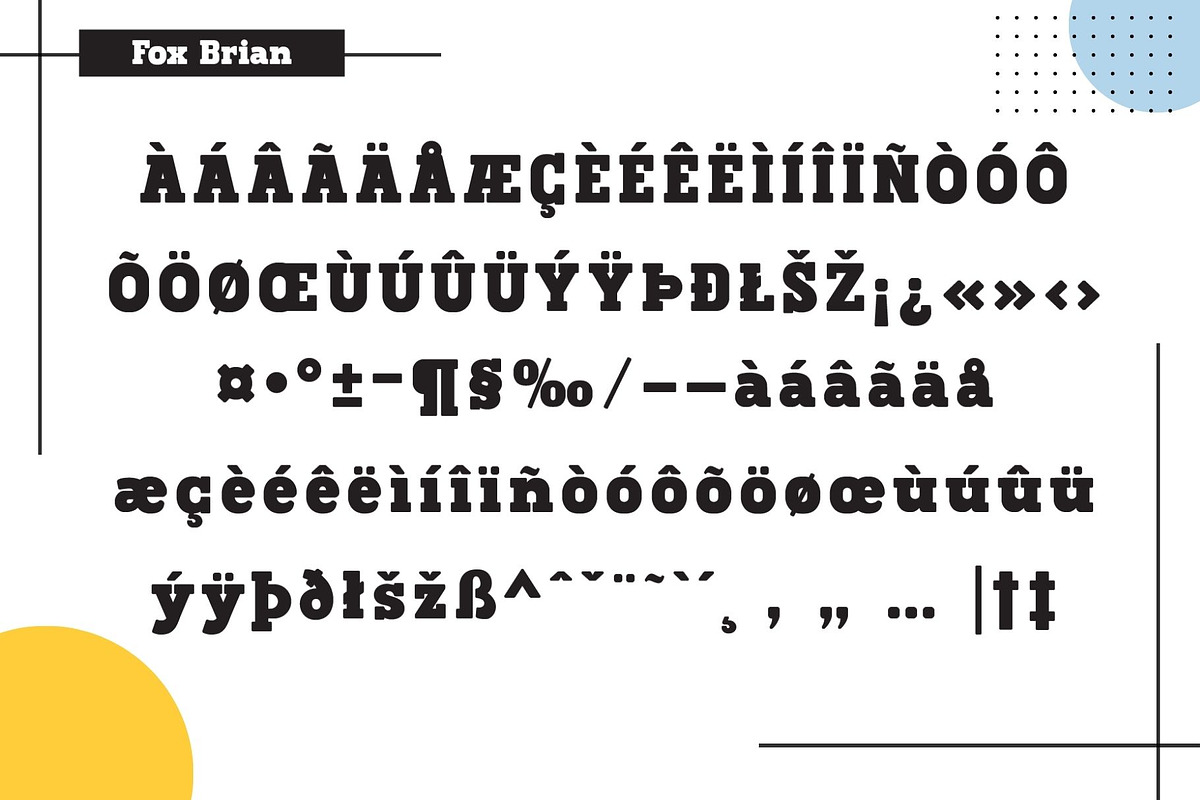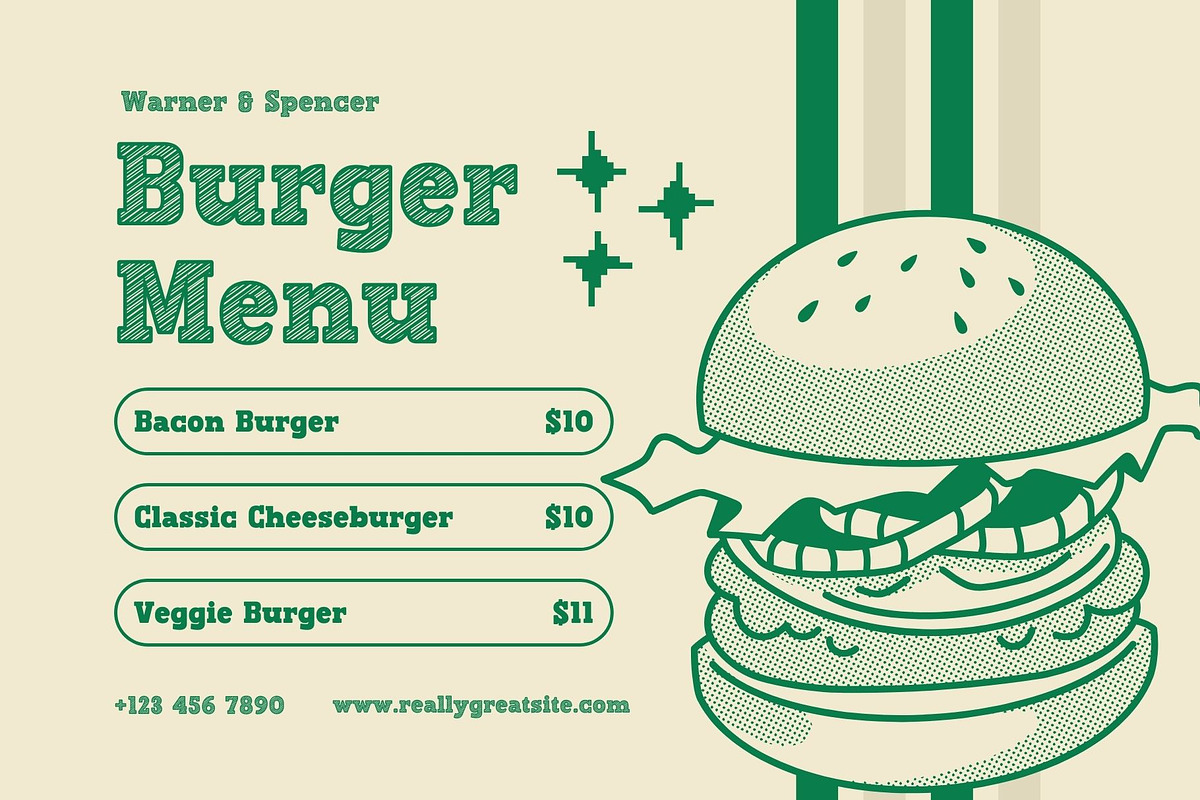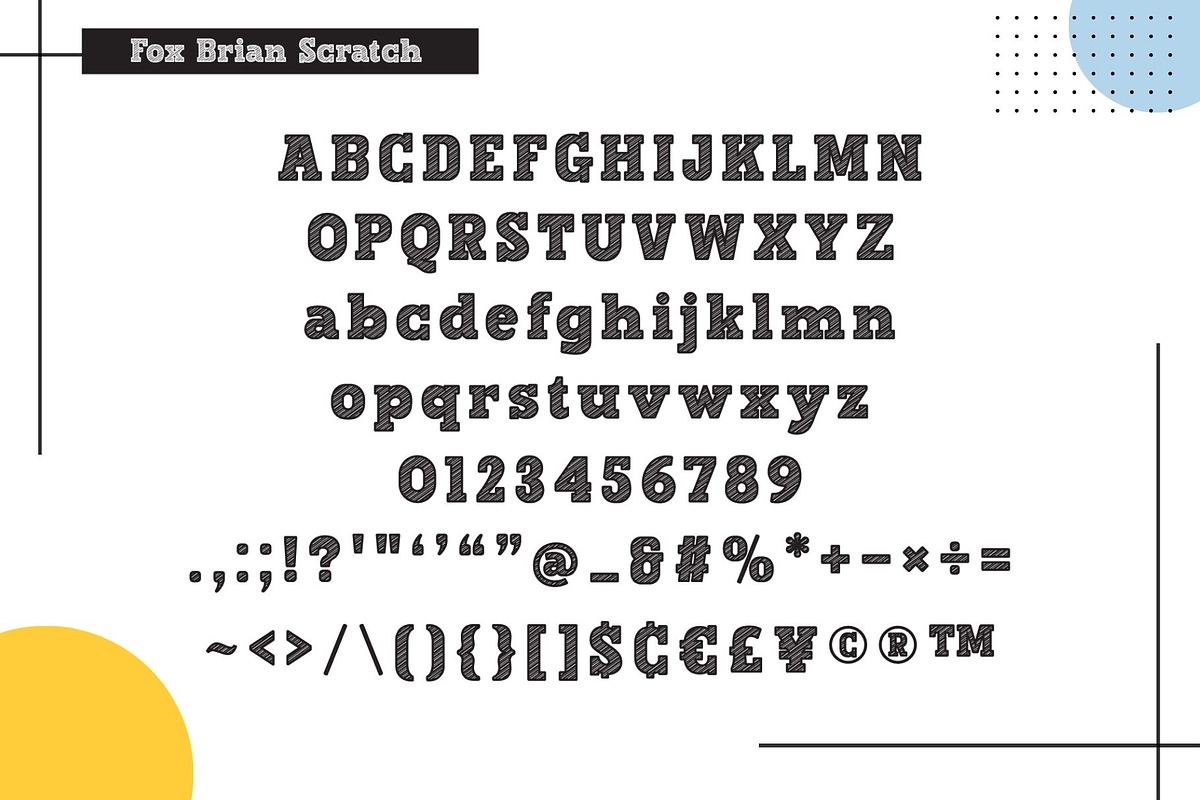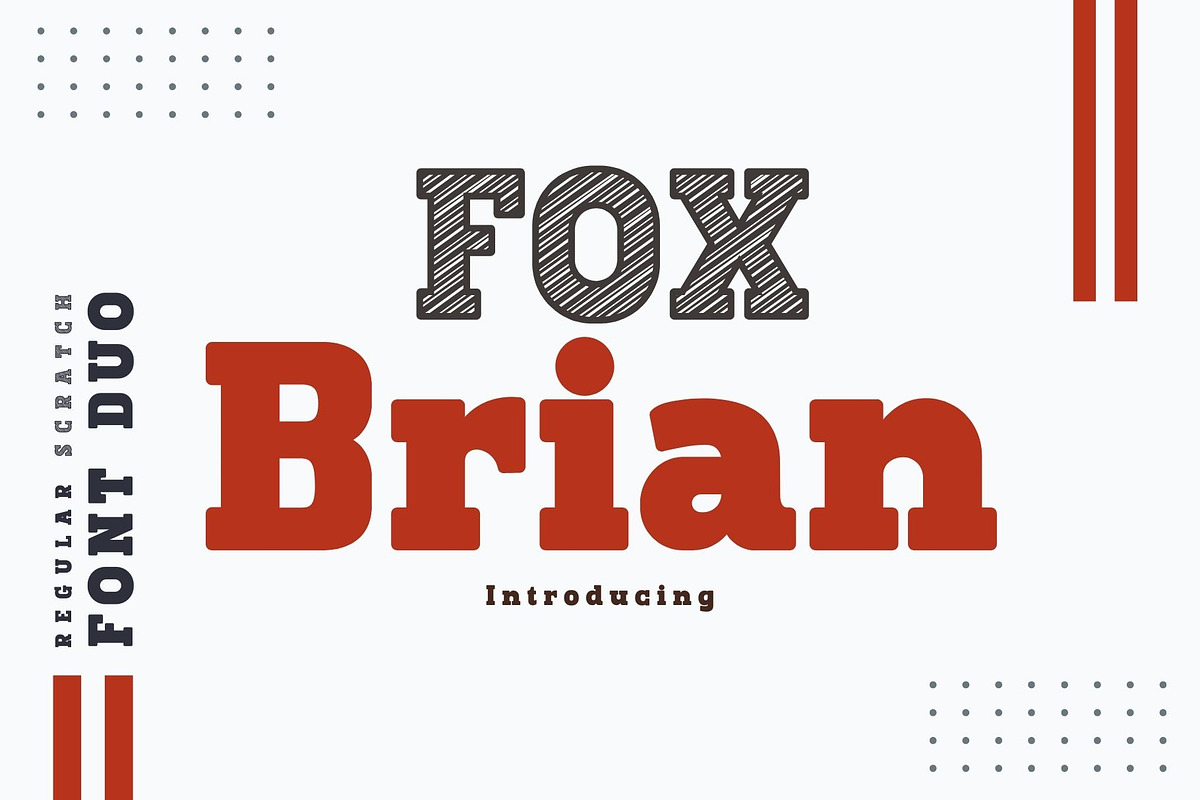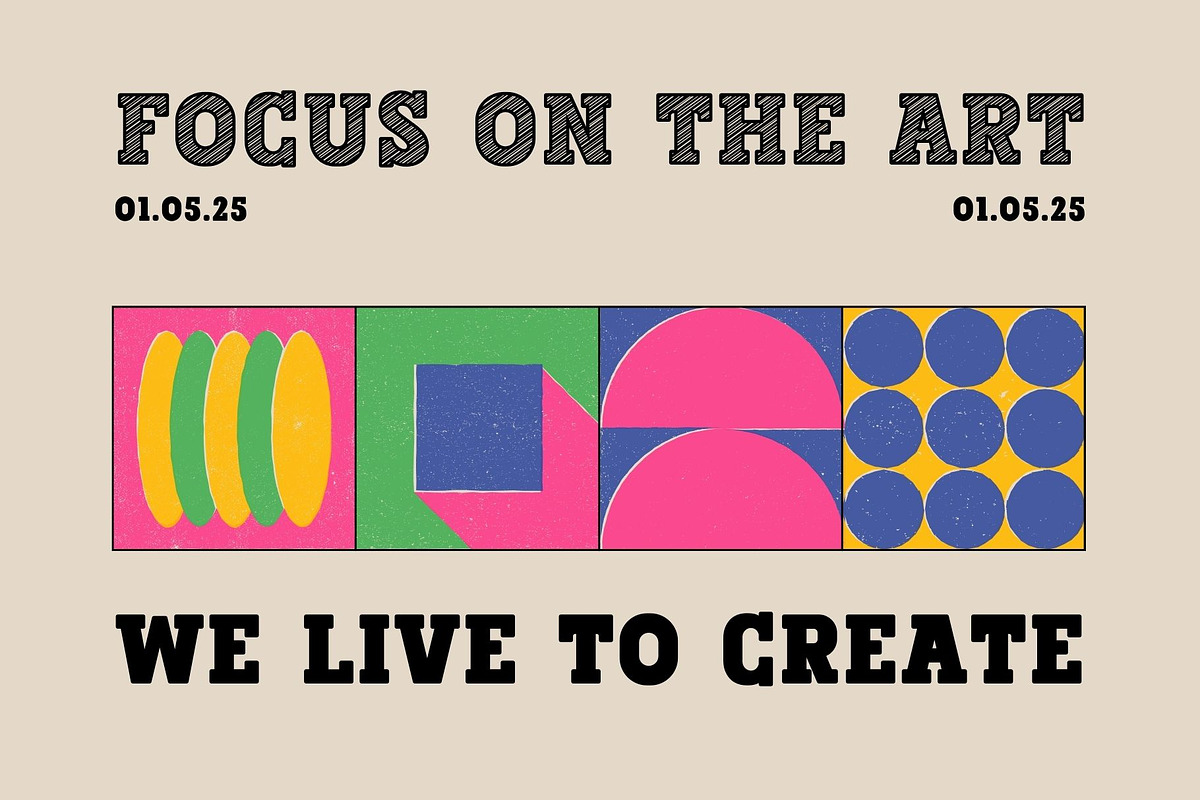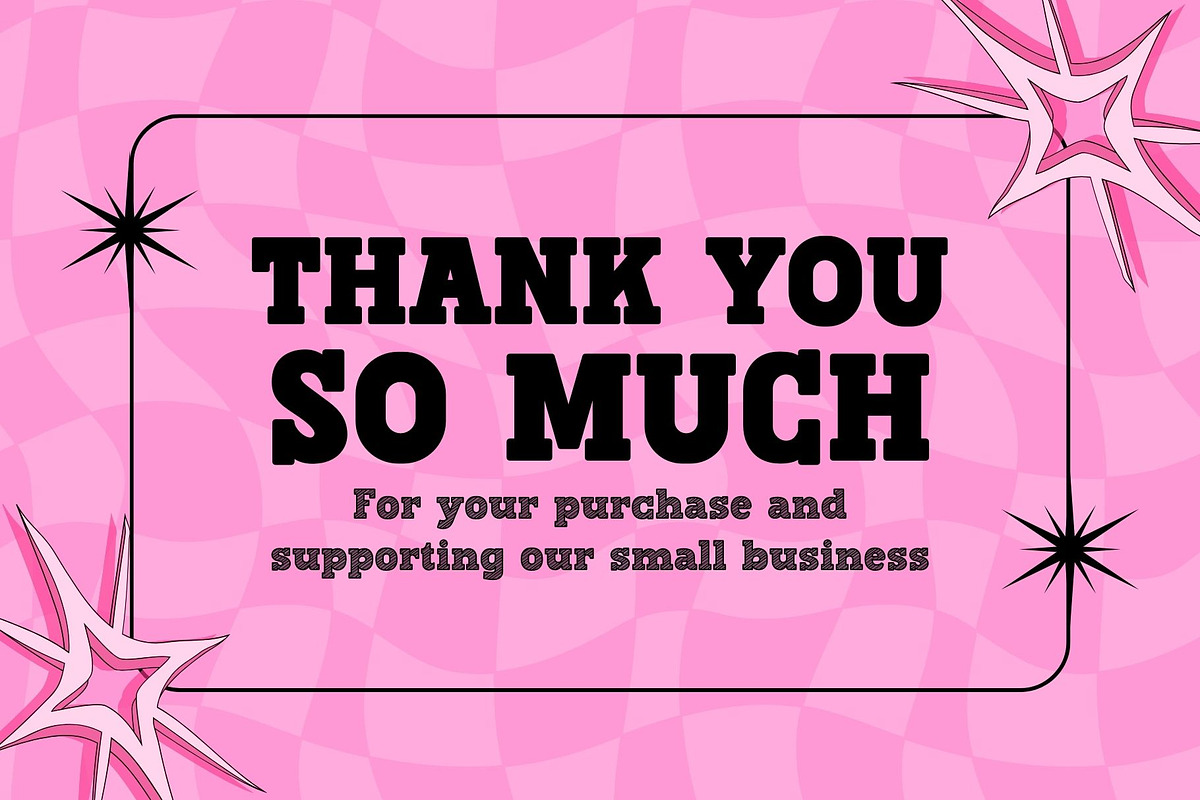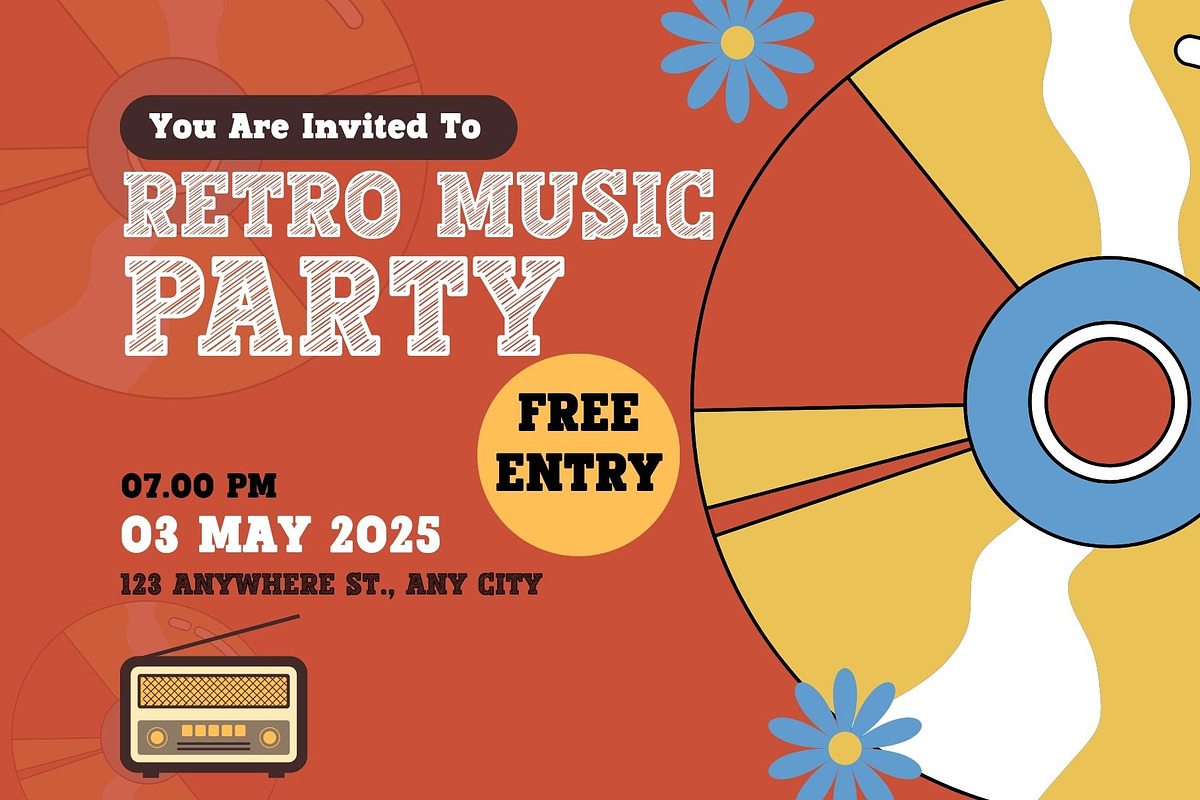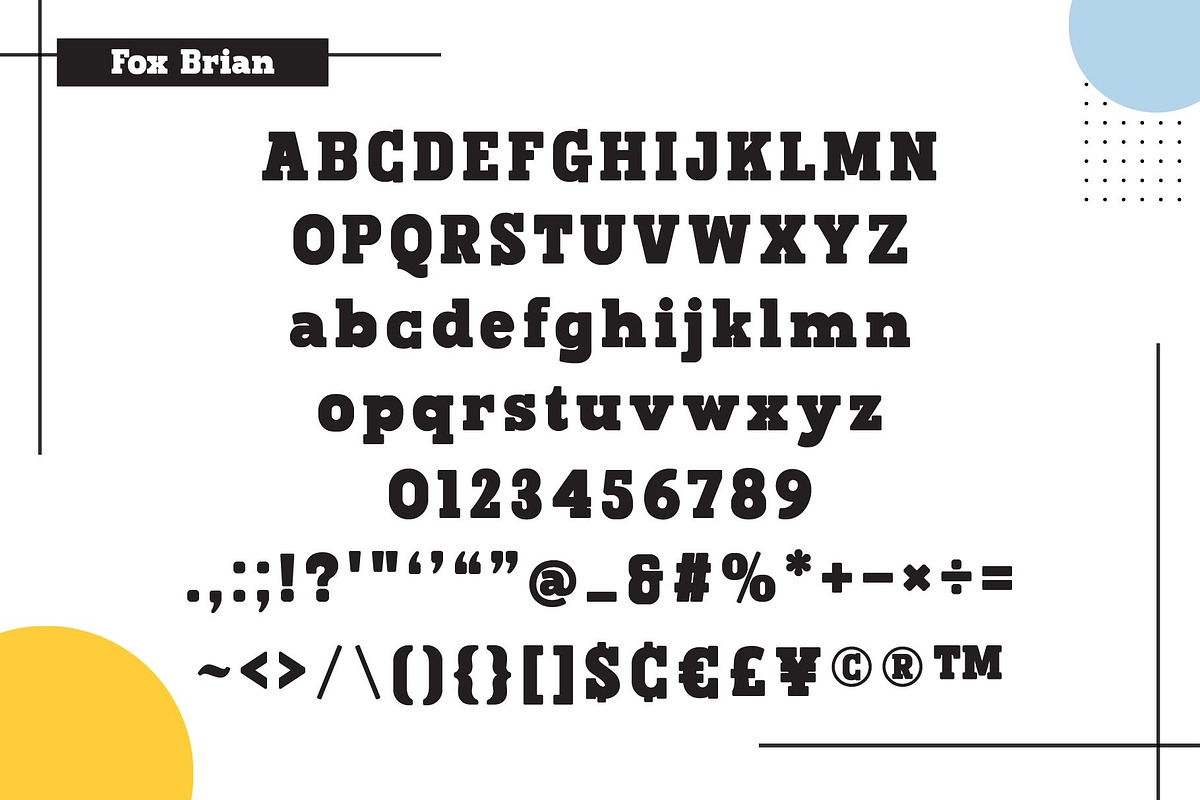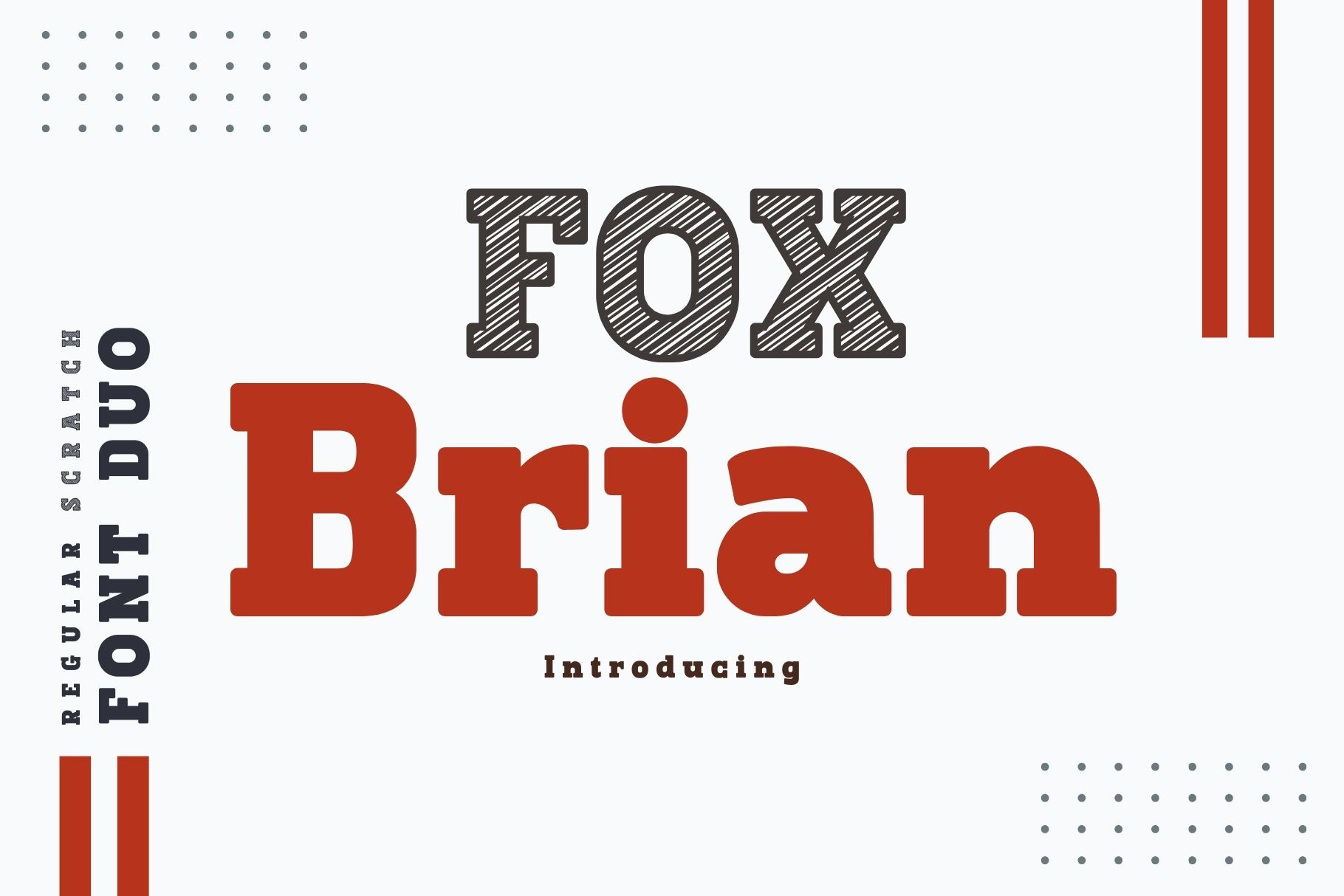
Fox Brian & Fox Brian Scratch font
Fox Brian and Fox Brian Scratch fonts are cool and fun Slab Serif Fonts that add a captivating and energetic touch to your designs. Perfect for use in publications, menus, logos, business cards, or even printed on t-shirts, these fonts exude uniqueness. Its main feature is its vibrant and expressive design, allowing you to create attention-grabbing headlines, t-shirt typography, banners, product labels, and more.